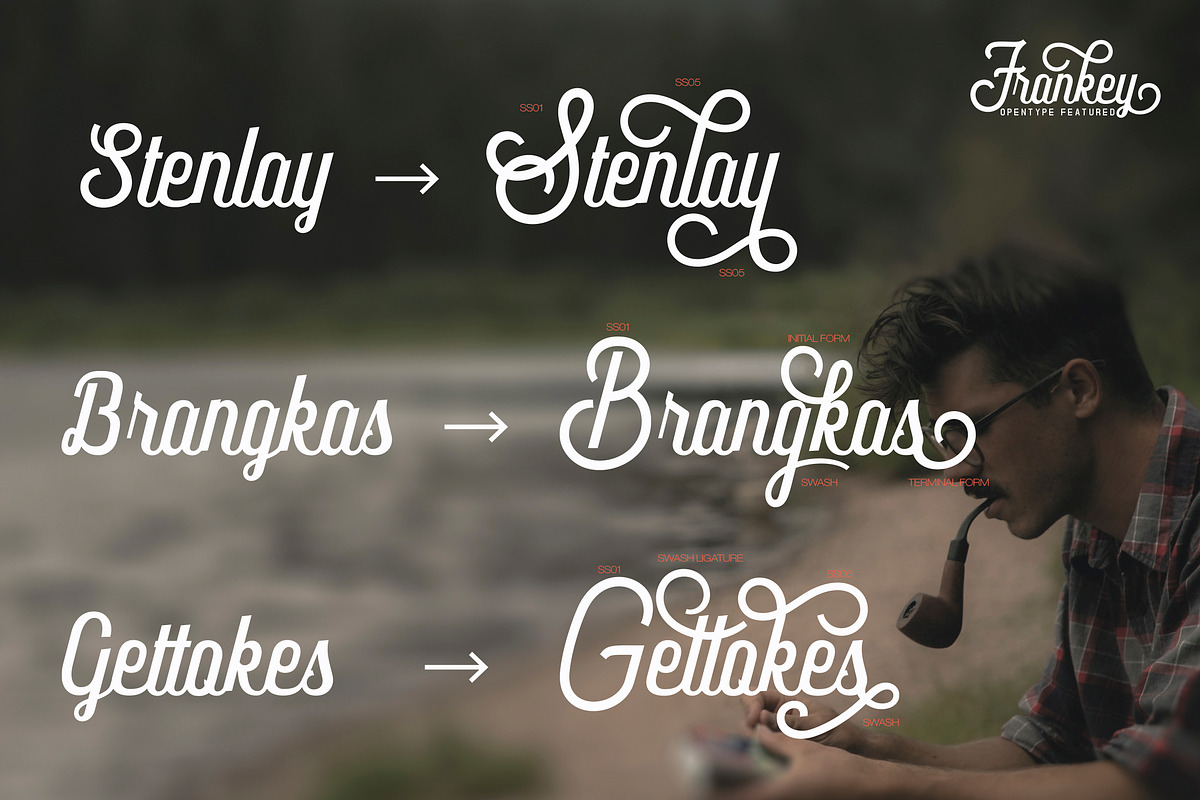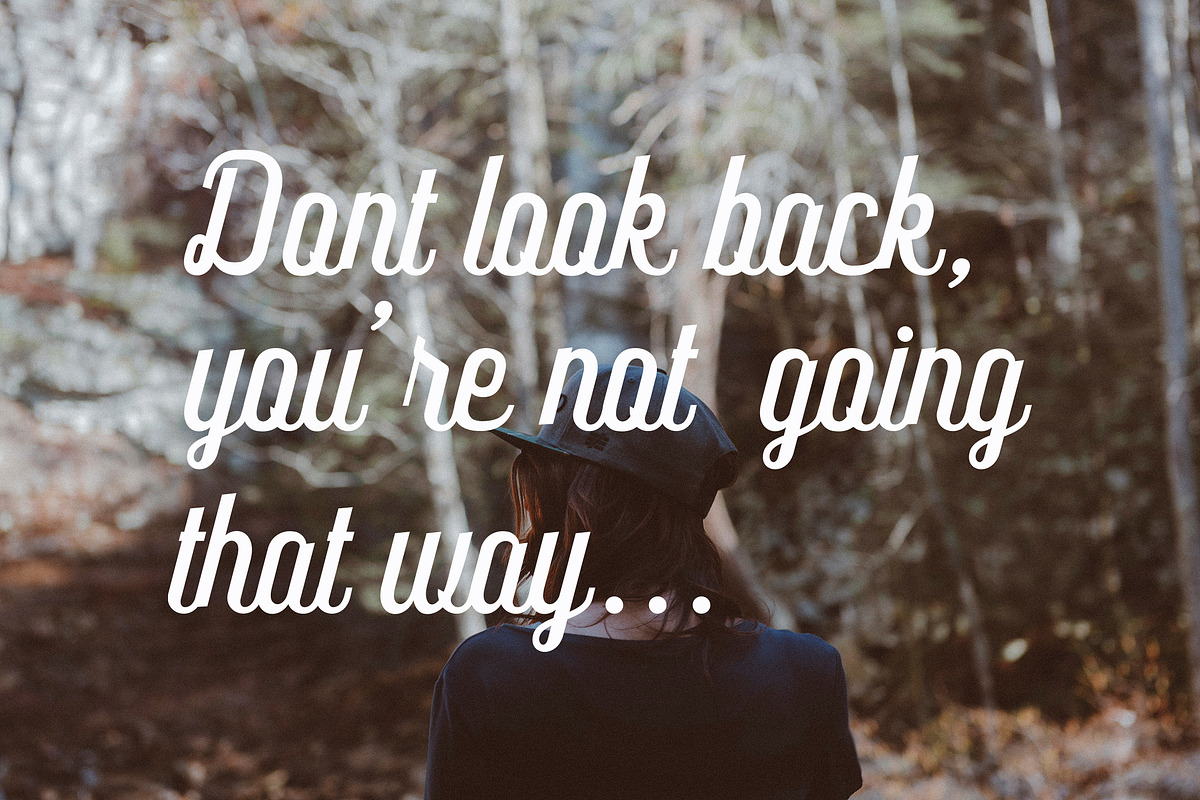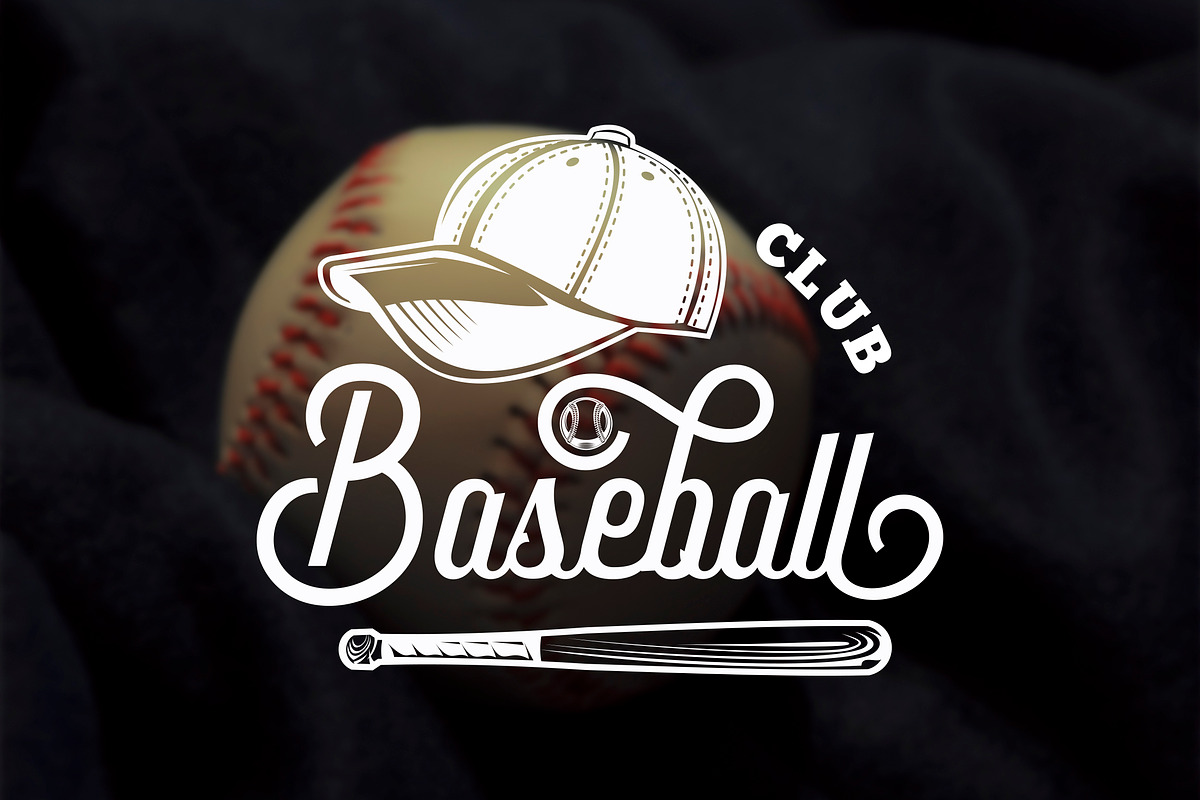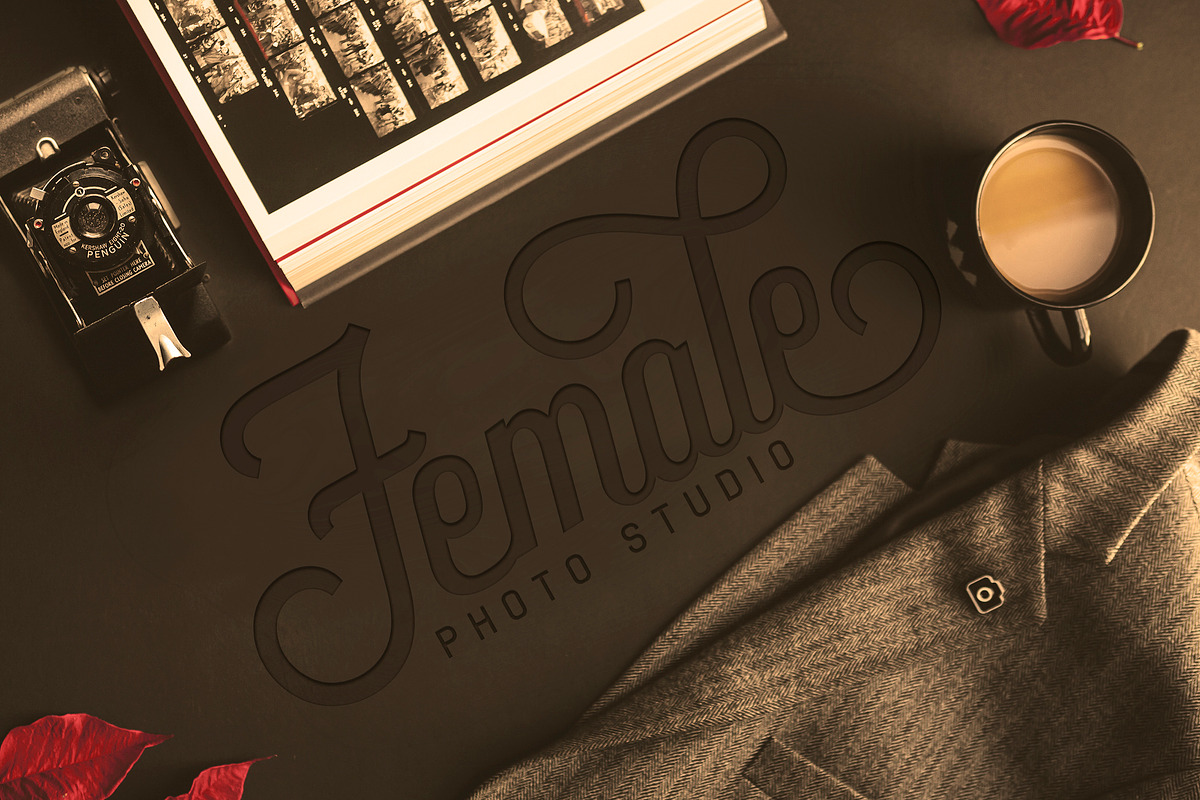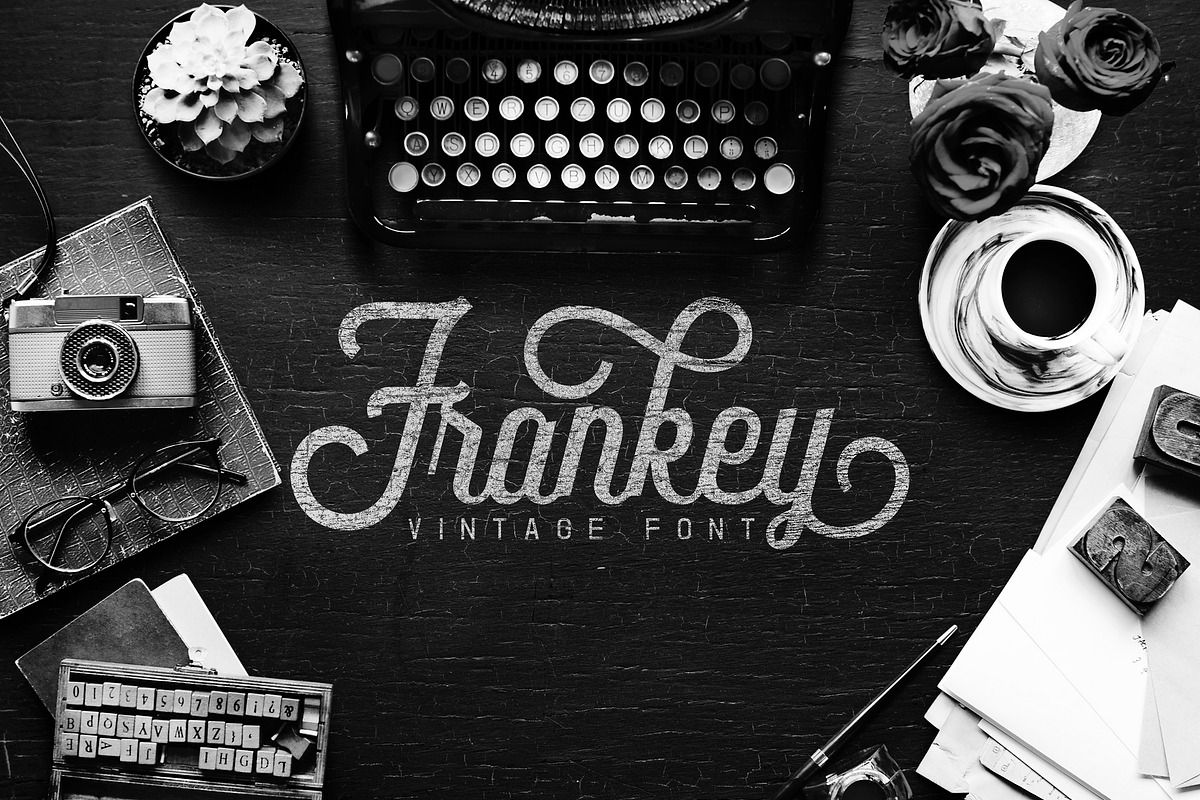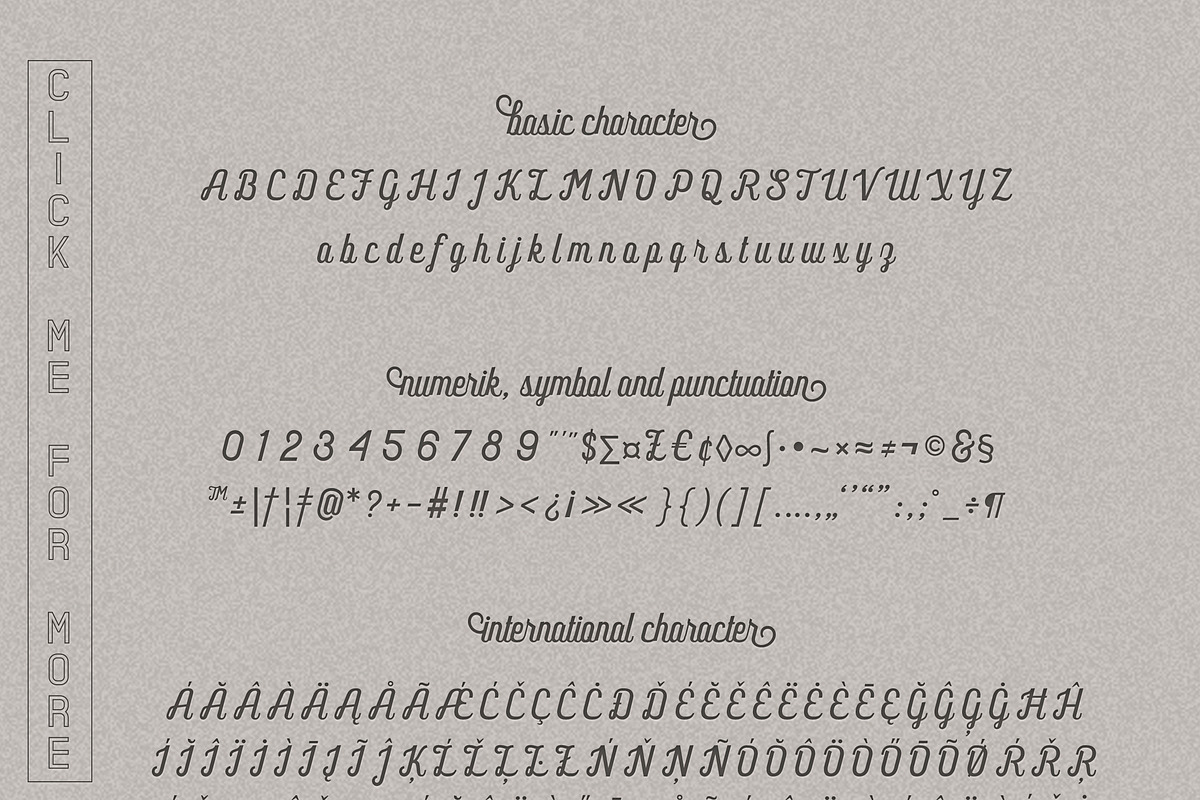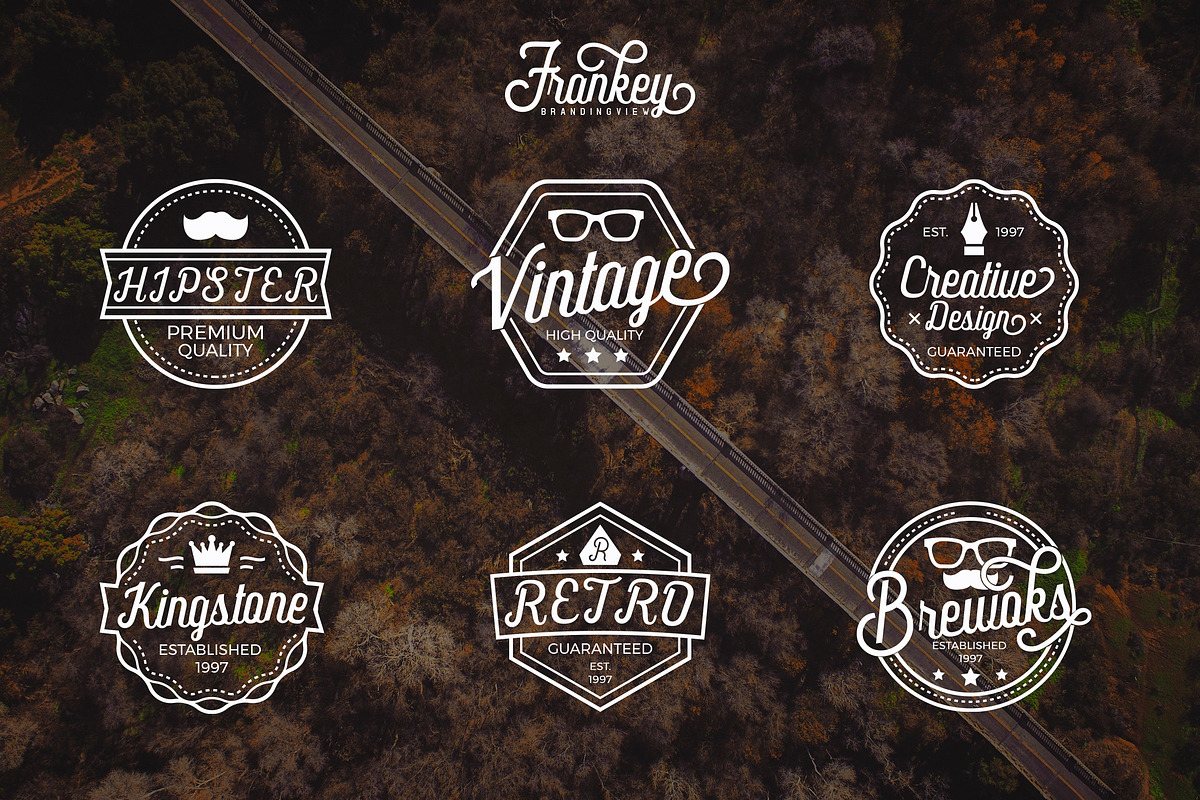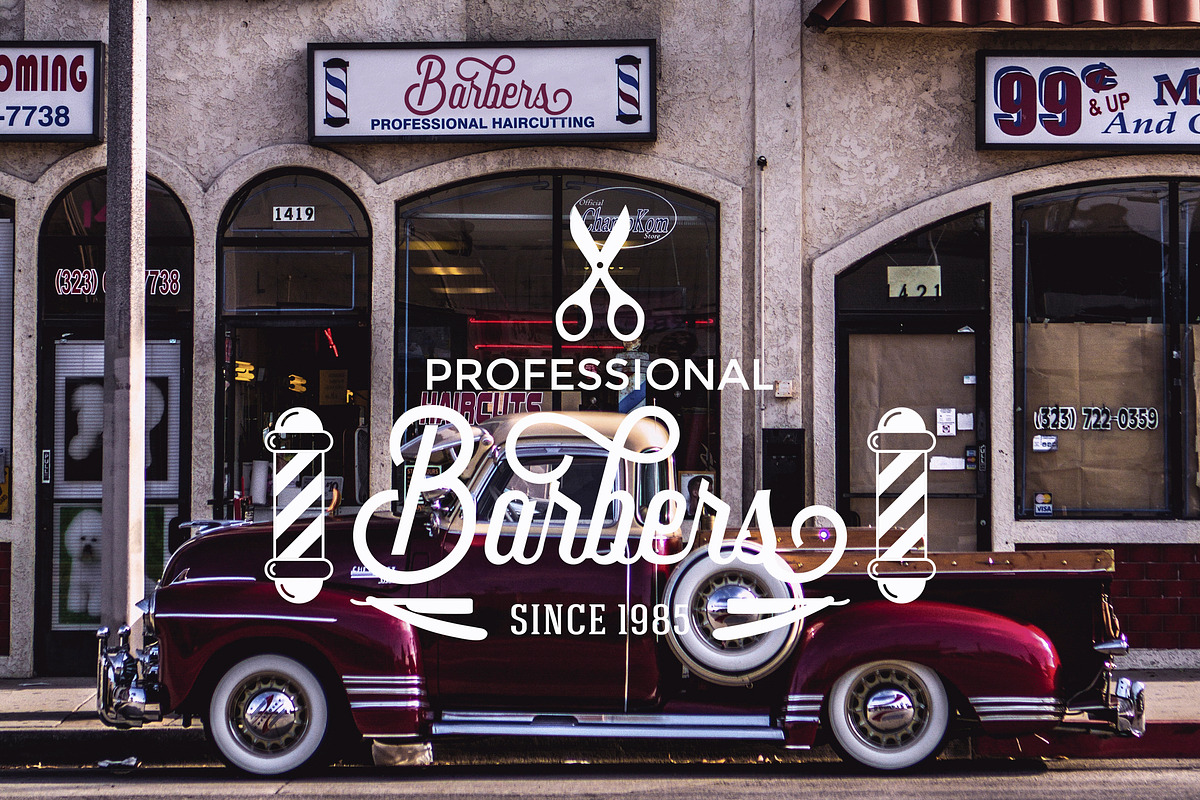
Frankey Vintage Font
Frankey Vintage Font is an elegant script font inspired by Retro Style. It perfectly represents vintage esthetics in a modern and minimalist way. The font includes special uppercase letters, alternate characters and beautiful ligatures. Frankey Vintage Font suitable for any design : Branding, Logotype, Bodytext, T-shirts, Mug design, Wedding Design and any design what you want.
Character set A-Z with Alternates letters
Character set a-z with 6 Alternates letters
Ligature and Discretionary Ligature
Contextual Alternates and Swash
- The font includes special uppercase letters, alternate characters and beautiful ligatures.
- Character set A-Z with Alternates letters
- Character set a-z with 6 Alternates letters
- Ligature and Discretionary Ligature
- Contextual Alternates and Swash
- Numerals & Punctuation
- Accented characters
Why Frankey Vintage Font is worth a look
Frankey Vintage Font by AQR Studio fits naturally into Branding, posters, packaging, typography.